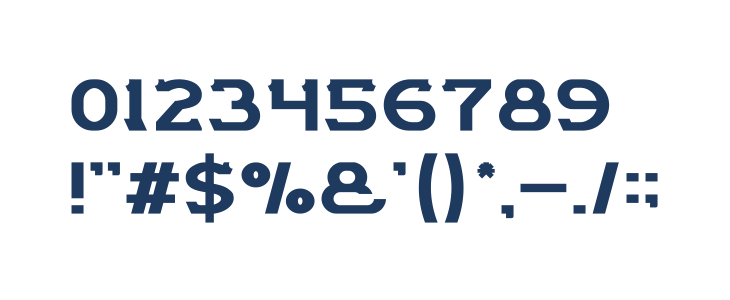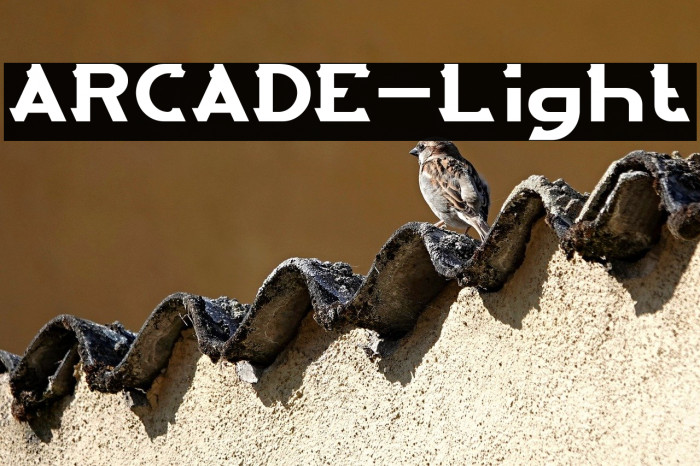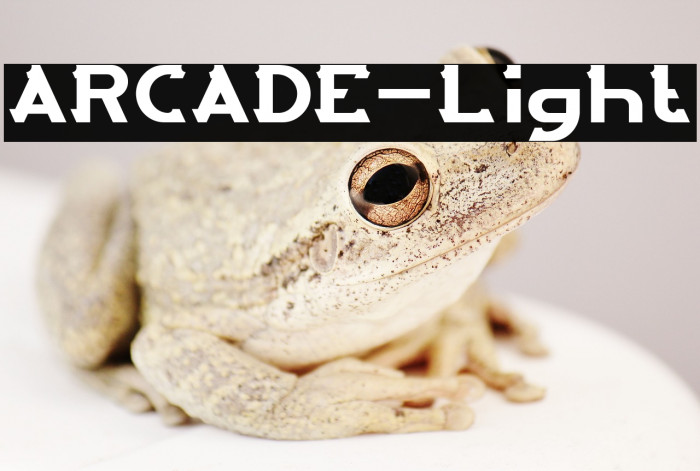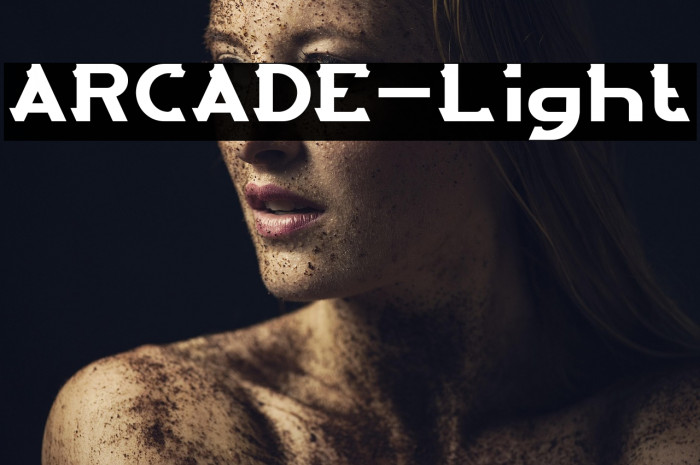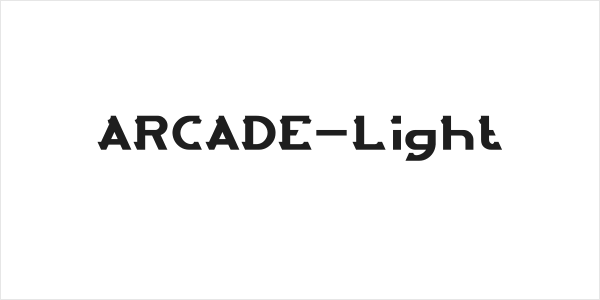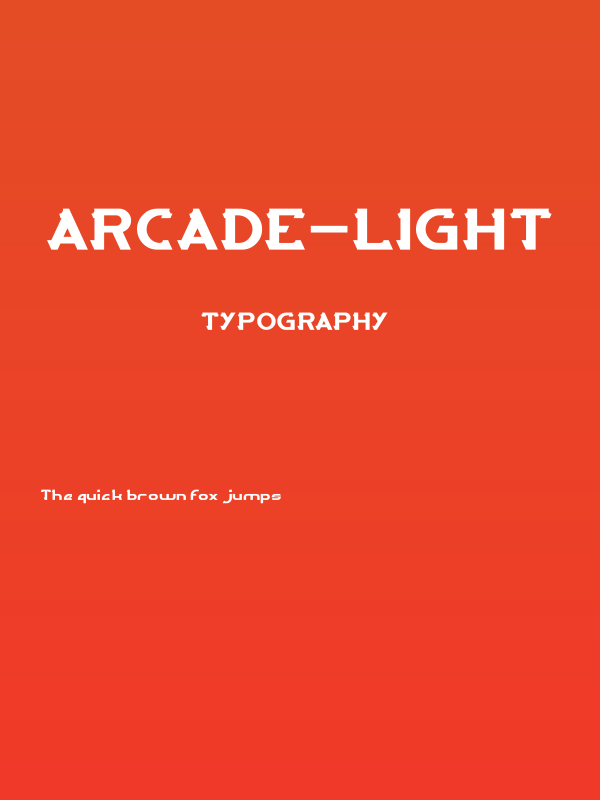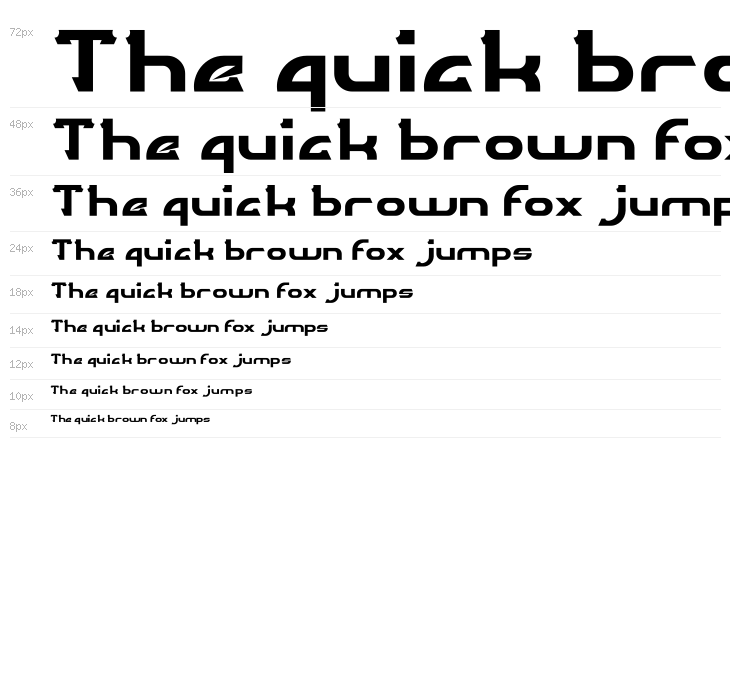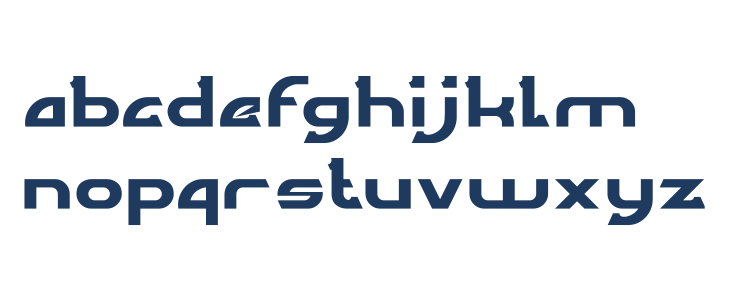
ARCADE-Light Font
ARCADE-Light Description
This font features a bold and geometric design with a futuristic flair. The uppercase letters are characterized by sharp angles and distinct cuts, giving them a dynamic and edgy appearance. The lowercase letters maintain a similar style, with a slightly more streamlined look. The numbers are consistent with the overall theme, offering a modern and robust feel. Special characters are designed to complement the alphanumeric characters, ensuring a cohesive look across all glyphs. This font is ideal for projects that require a strong and contemporary aesthetic.
| Proposed Projects | Ideal for video game titles, tech branding, posters, and modern digital interfaces. |